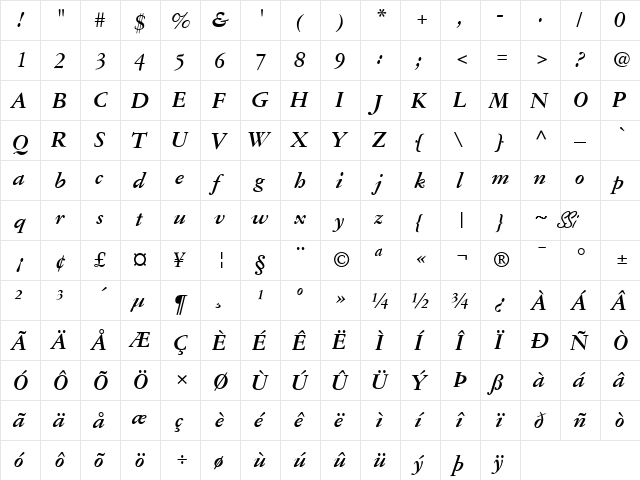
Garamond Reprise SSi Bold Italic Font Preview
Design Context for Garamond Reprise SSi Typeface
Garamond Reprise SSi takes a measured approach to typography — its balanced proportions and neutral character make it a reliable workhorse for both digital and print work. The dynamic lean of this cut emphasises speed and emphasis in any layout. The heavy weight commands attention and anchors typographic hierarchies.
Pro Tip: Use Garamond Reprise SSi for emphasis, pull quotes, and subheadings where its slanted energy can add rhythm to the layout.